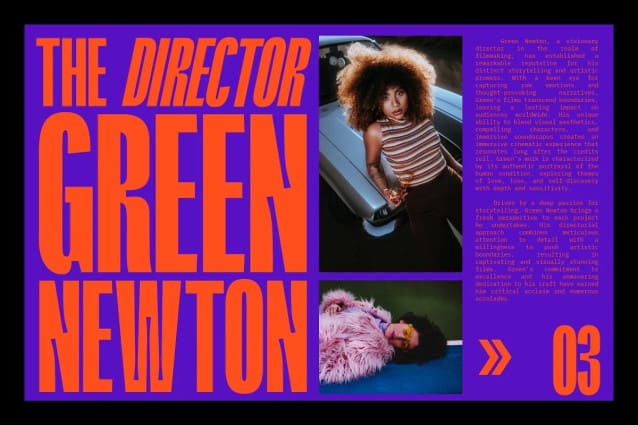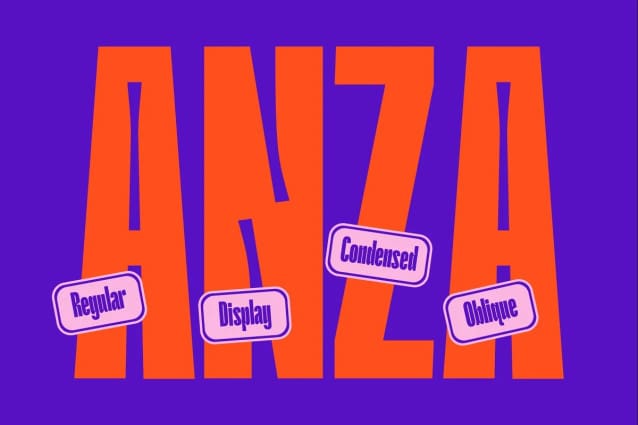
Anza Font
Anza Font is a tall condensed sans serif display font with exaggerated ink trap stylings. This typeface could be perfect for use in large titles, headlines, branding projects, editorial layouts & so much more!
It includes a handful of alternate characters as well as some ligatures to optimize the appearance in awkward pairings. You’ll get the regular & oblique styles, each with a full set of multilingual characters.